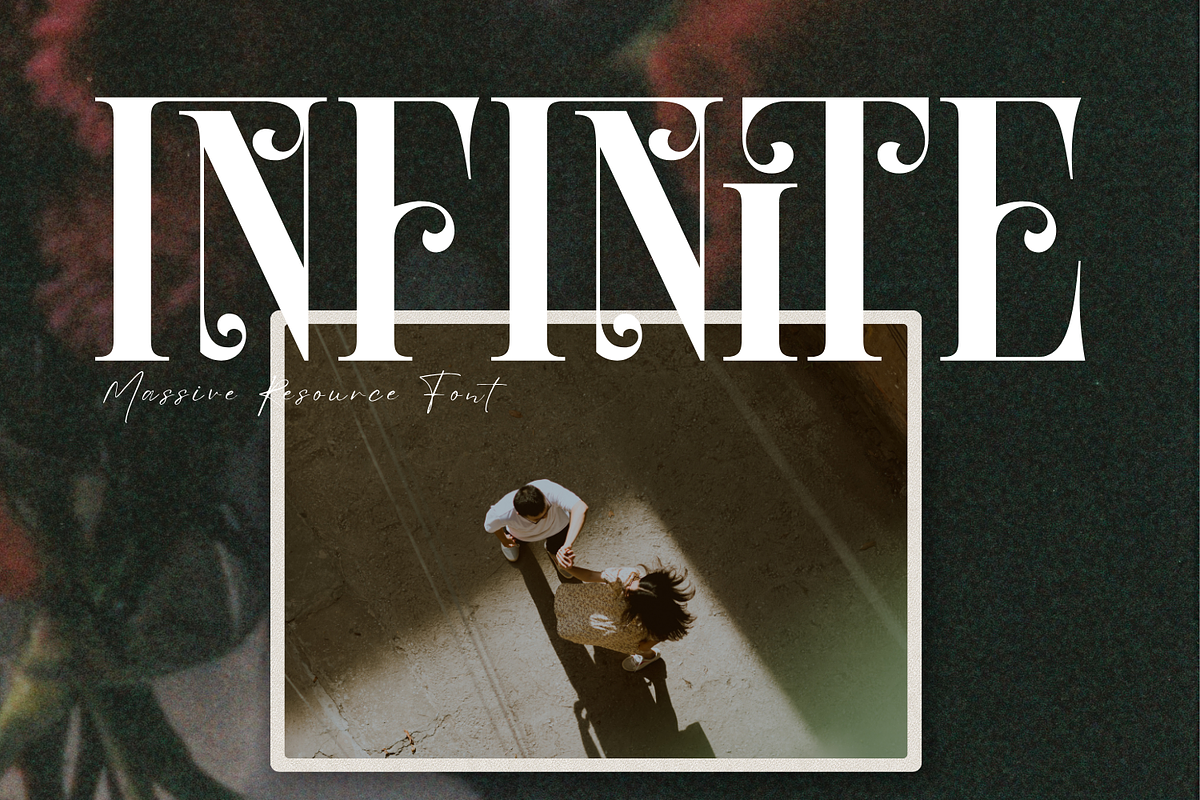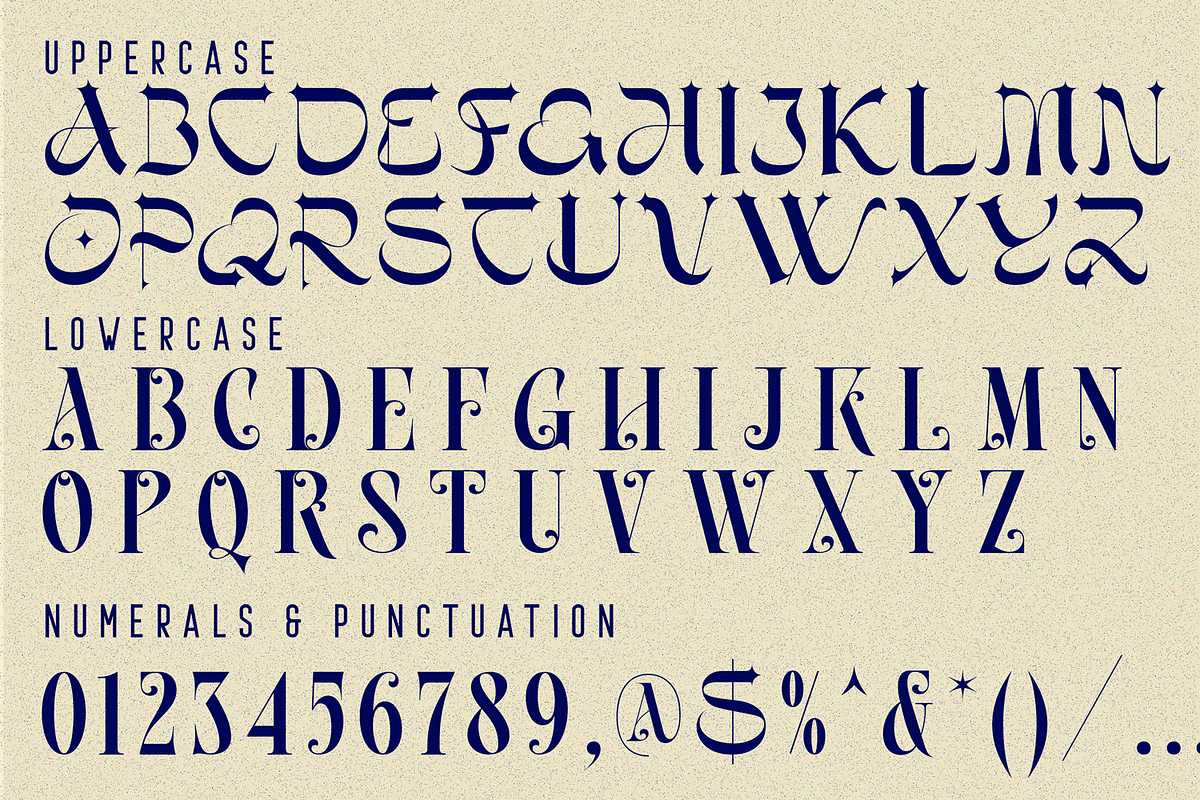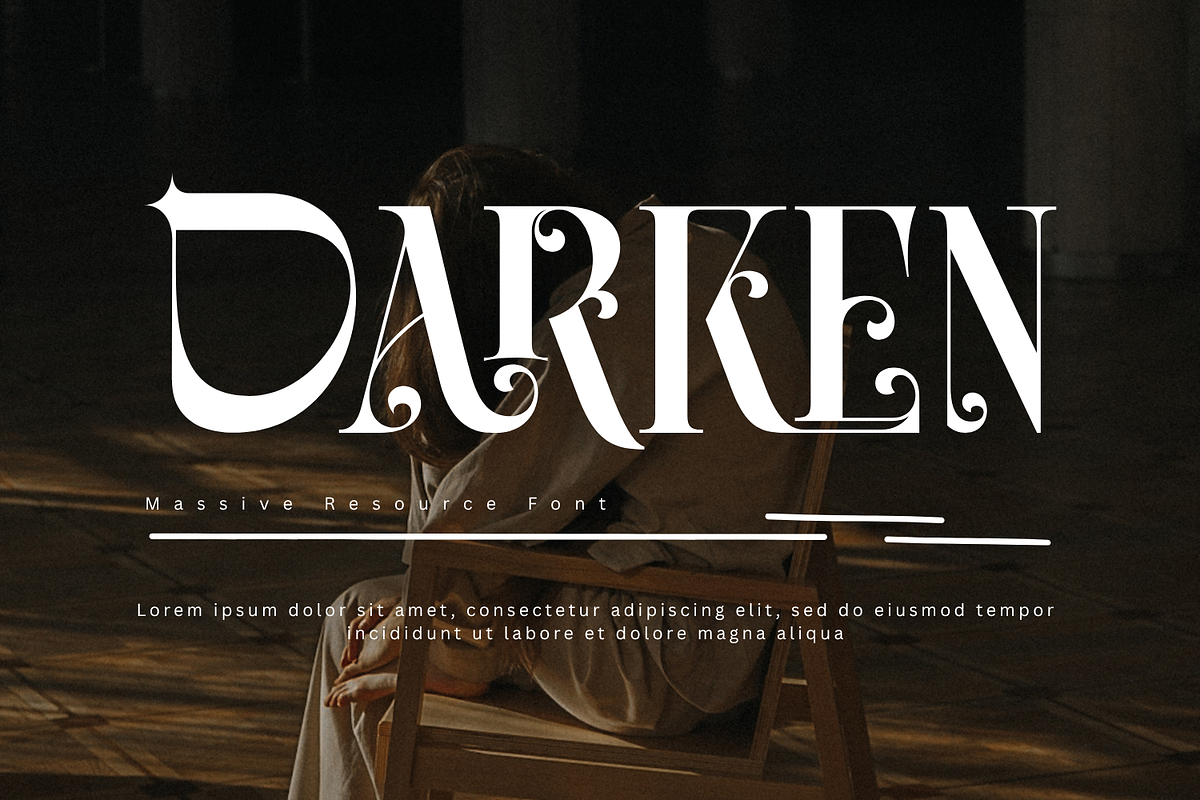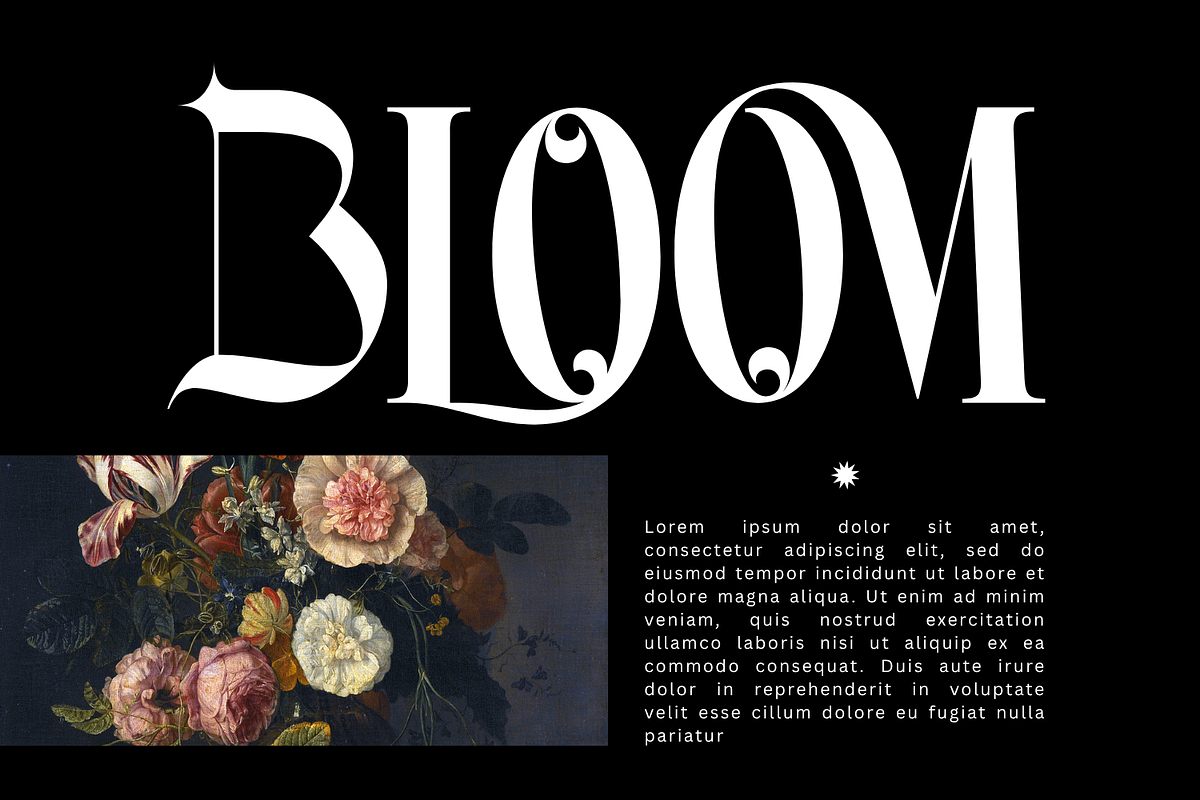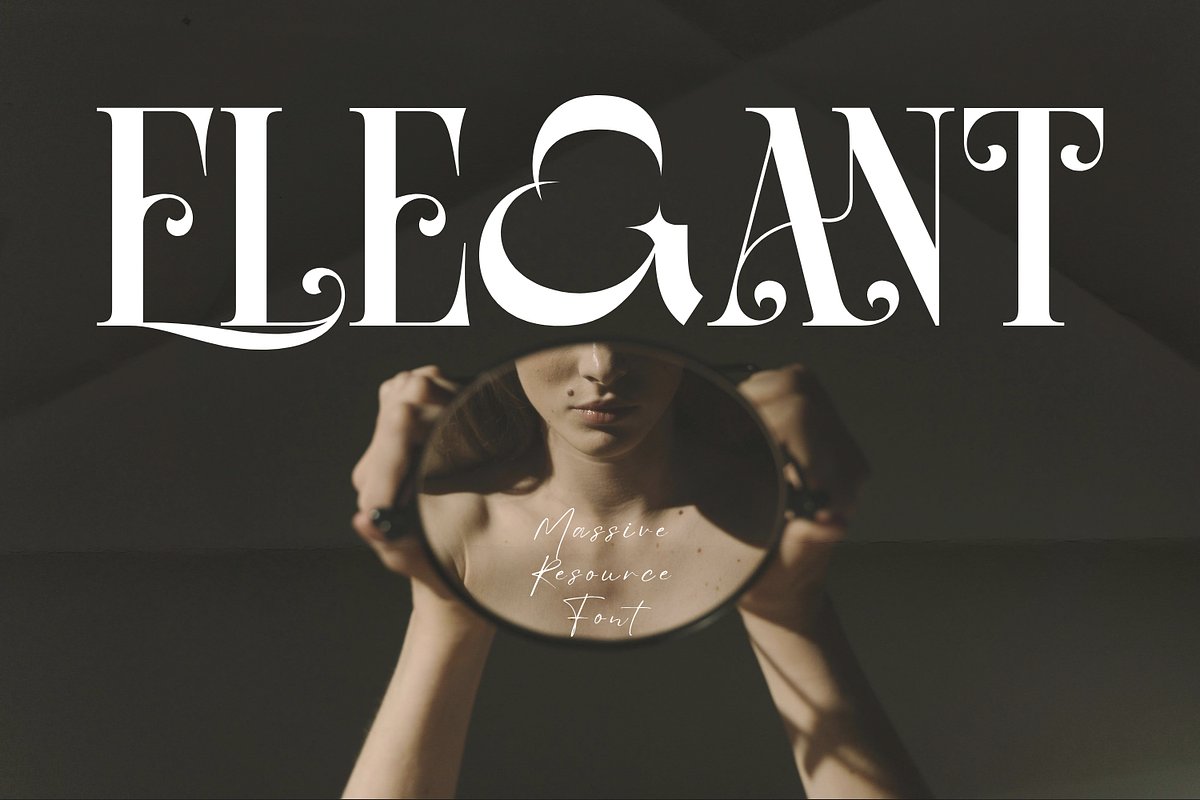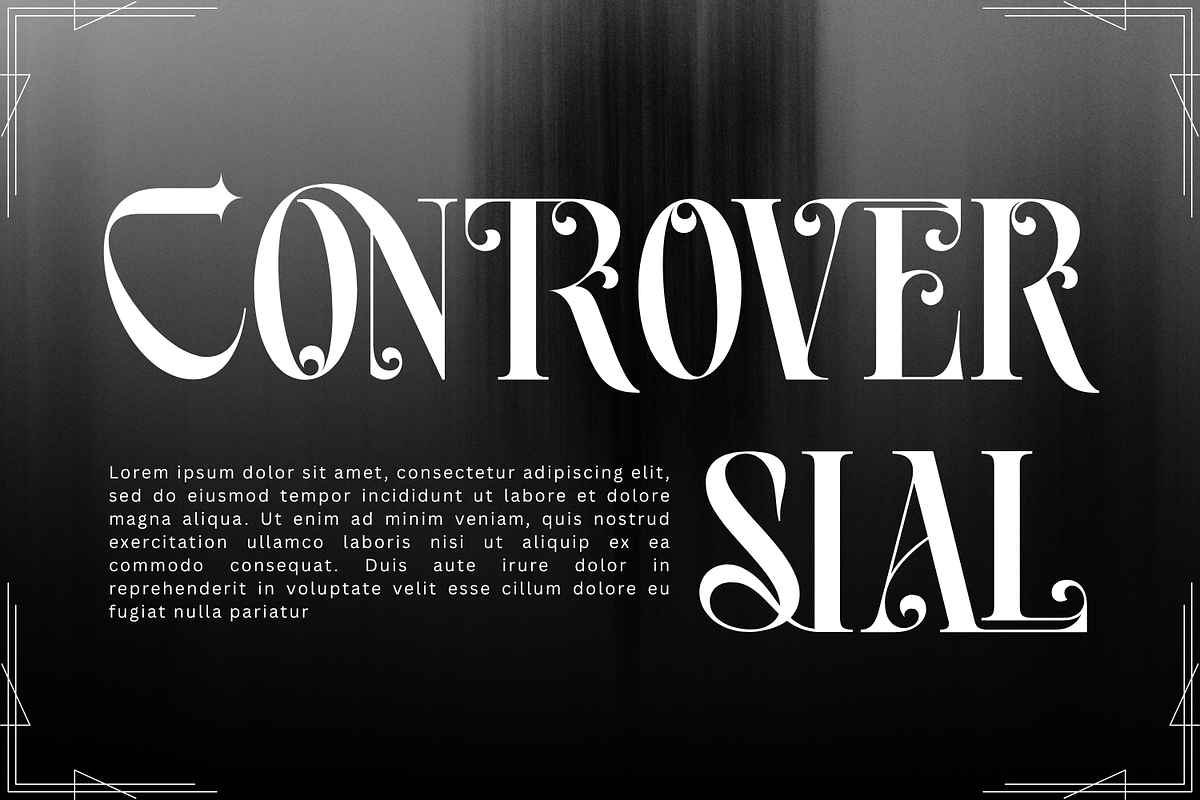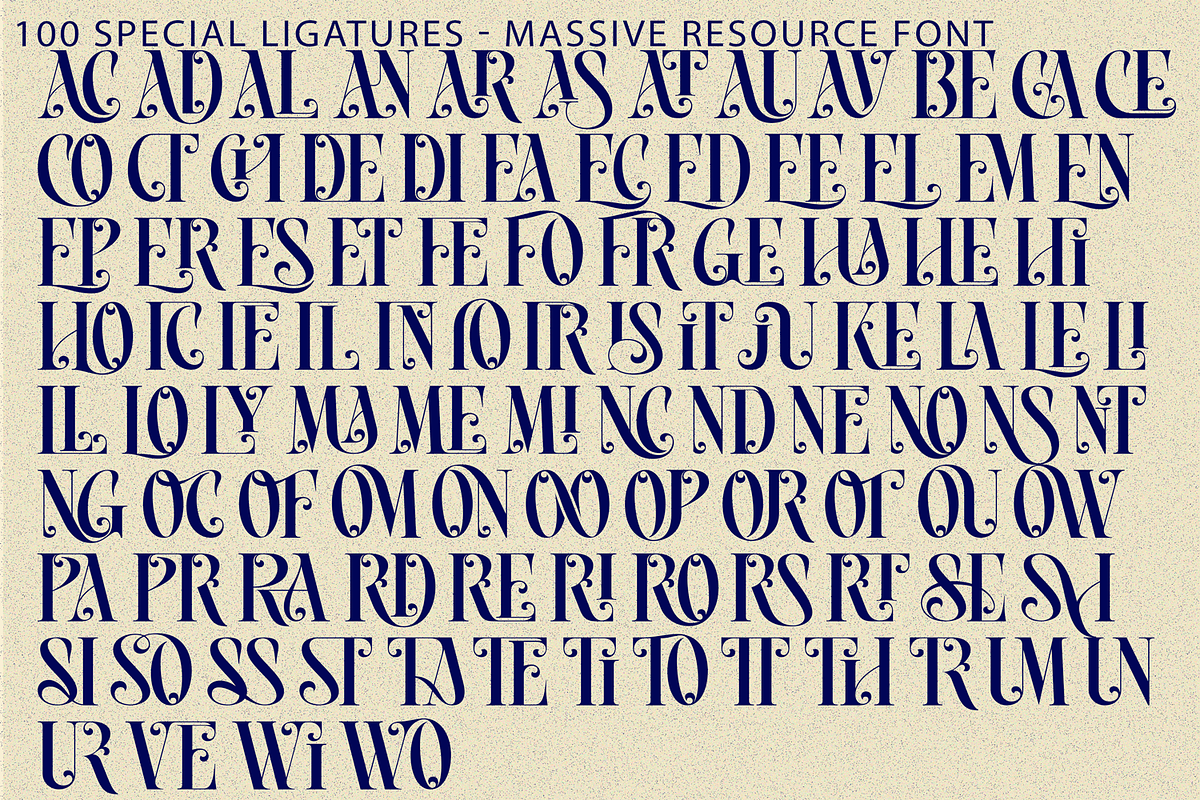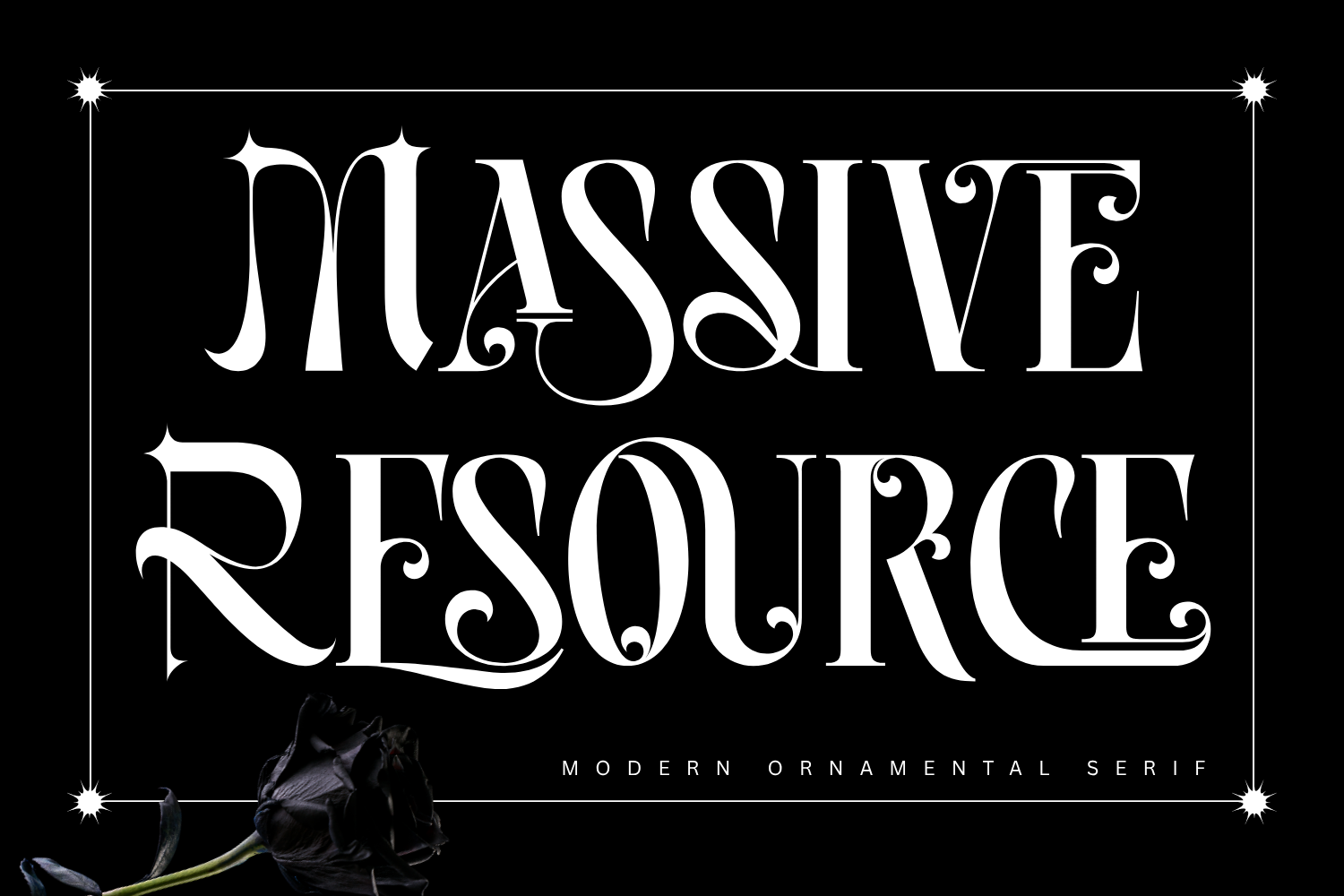
Massive Resource - Elegant Font
Massive Resource - Elegant Font is an elegant decorative serif display font that blends timeless sophistication with exquisite ornamental details. Inspired by classic Victorian typography and refined Didone aesthetics, this typeface features dramatic high-contrast strokes, graceful curves, and beautifully crafted swashes that add a luxurious and artistic touch to every design. With its ornate terminals, flowing flourishes, and sophisticated letterforms, Massive Resource evokes a sense of vintage charm while maintaining a modern editorial appeal. Each character is thoughtfully designed to create stunning visual impact, making this font perfect for premium and expressive typography.
🔤Features:
Uppercase & Lowercase Letters
Around 100 Special Ligatures & Alternates
Accented Characters for multilingual support
🔤About 100 ligatures combined with Stylistic Alternates Font:
ac ad al an ar as at au av be ca ce ch co ct de di ea ec ed ee el em en ep er es et fe fo fr ge ha he hi ho ie ic il in io ir is it ju ke la le li ll lo ly ma me mi nc nd ne ng no nt ns oc of om on oo op or ot ou ow pa pr ra rd re ri ro rs rt se sh si so ss st ta te th ti to tr tt um un ur ve wi wo